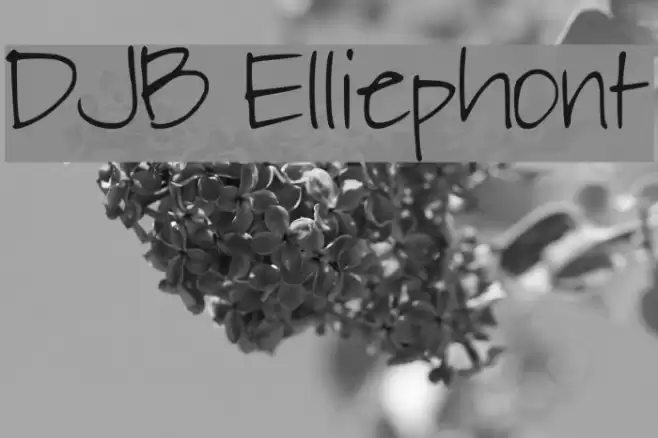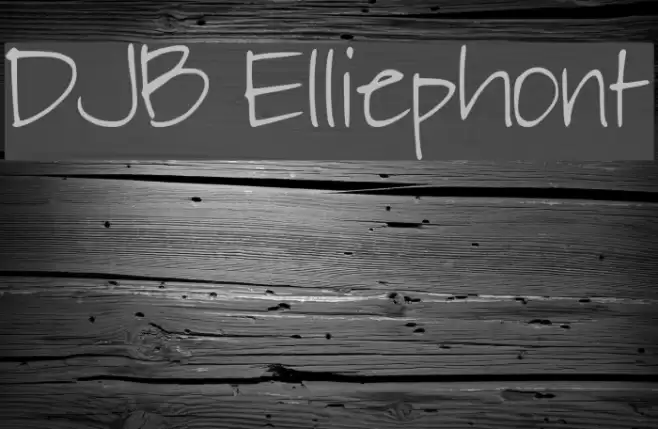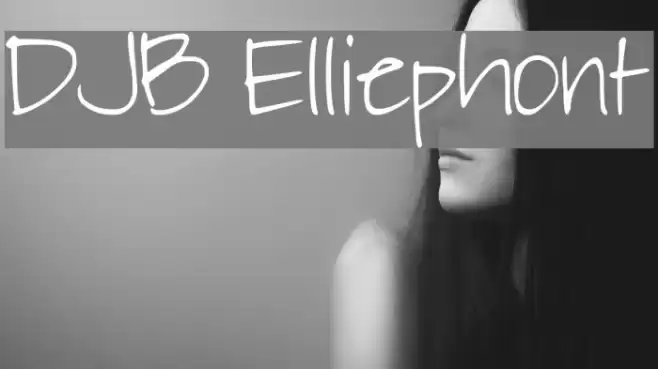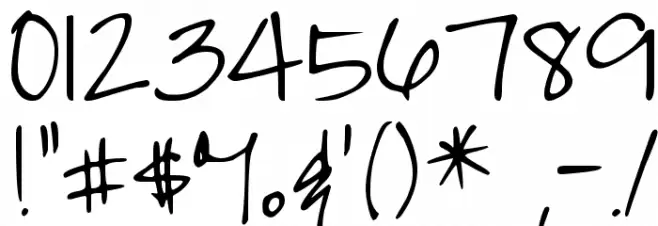
DJB Elliephont Font
DJB Elliephont Description
This playful and whimsical font features a handwritten style that exudes a casual and friendly vibe. The characters are slightly irregular, adding a personal touch that mimics natural handwriting. Each letter is distinct, with a smooth flow and rounded edges that contribute to its approachable appearance. The font maintains a consistent stroke width, giving it a uniform look while still retaining its informal charm. It's perfect for projects that require a touch of personality and warmth, such as greeting cards, invitations, or playful branding materials.
A playful handwritten font with a casual and friendly vibe from Uncategorized fonts.
- Proposed Projects: Ideal for greeting cards, invitations, playful branding, and personal projects.
- Overall Style: Casual, Playful
- Use Case: Headlines, Informal text, Personal projects